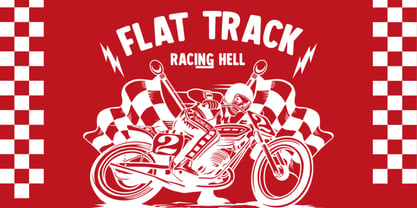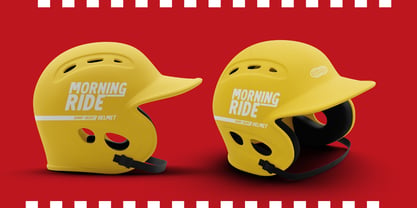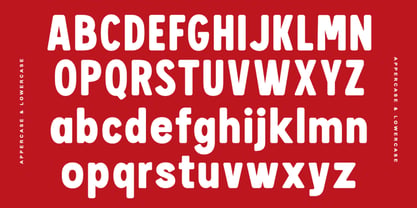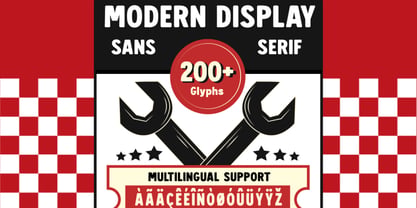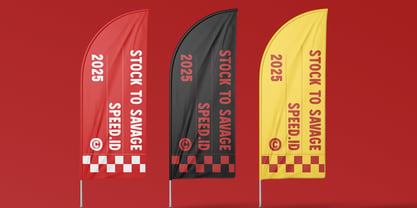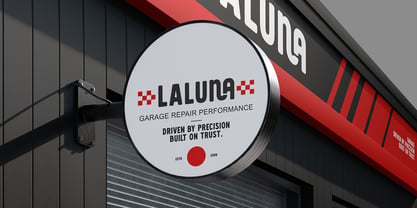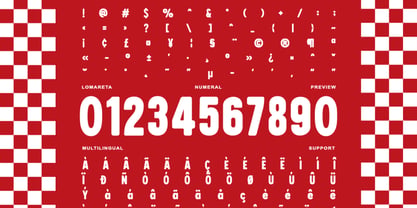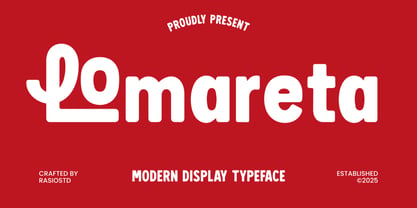
Lomareta
Die Schriftfamilie Lomareta wurde von Fajar Indra entworfen und von Rasio Studio veröffentlicht. Lomareta enthält 1 Stile. Mehr über diese Familie
Lomareta is a modern bold display typeface with a strong retro influence and a clean, rounded style. Designed to be fun yet impactful, Lomareta is perfect for headline designs, urban signage, racing merchandise, and playful branding concepts. The font features both uppercase and lowercase characters, making it versatile for all-caps display or stylized text compositions. Lomareta is a highly relevant choice for graphic designers, illustrators, and branding specialists seeking a bold and energetic font that bridges retro flair and modern clarity. Its chunky, rounded shapes make it perfect for projects in the automotive, racing, and food & beverage industries especially those that draw inspiration from vintage Americana, fast food branding, or motorsport aesthetics